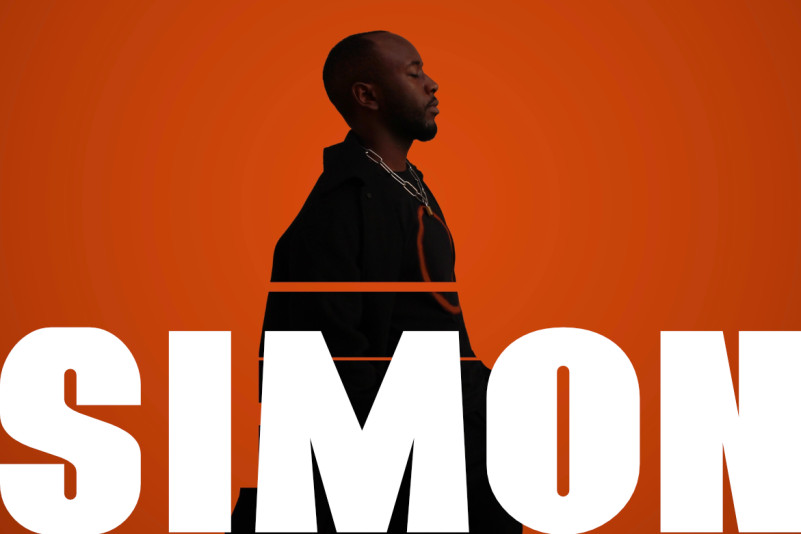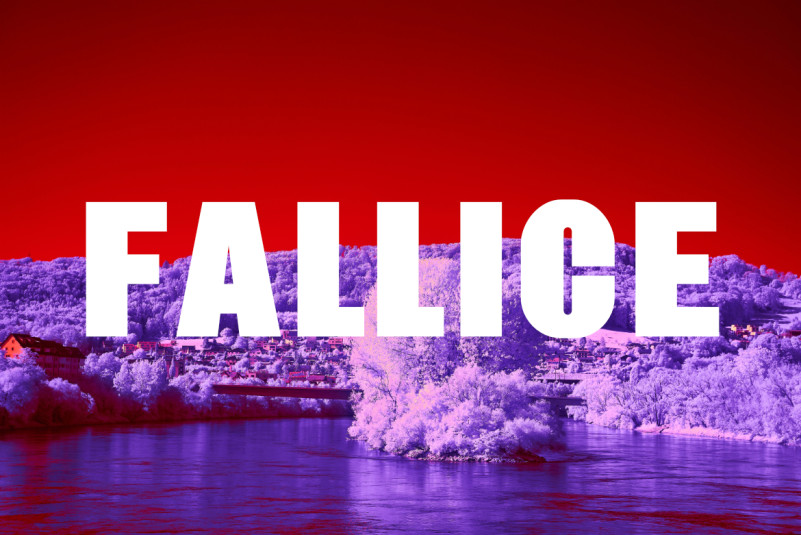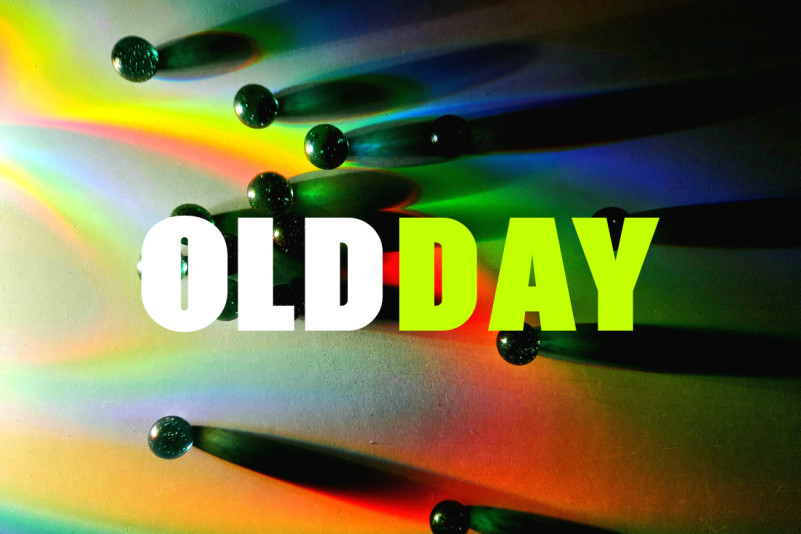
Creatball Font
Creatball Sans Serif Font is a sans serif font that will give a real modern feel to any project. Masterfully designed to become a true favorite, this font has the potential to bring each of your creative ideas to the highest level!
creatball is a bold font